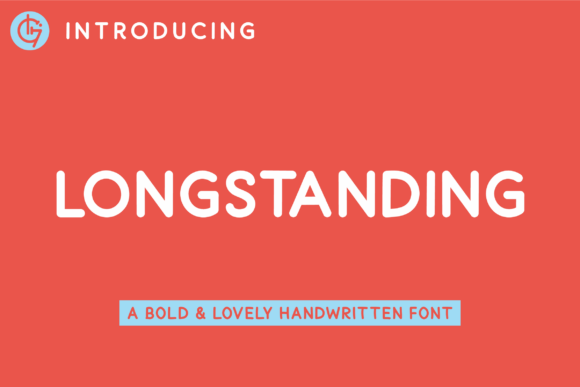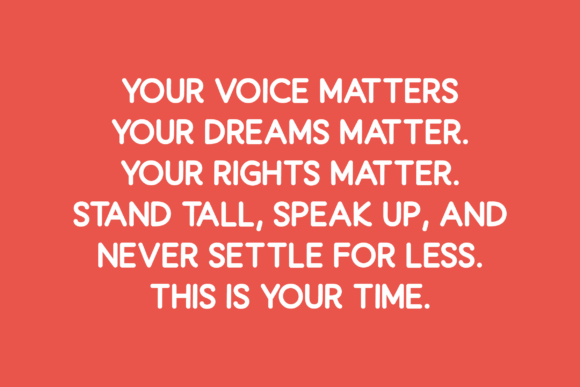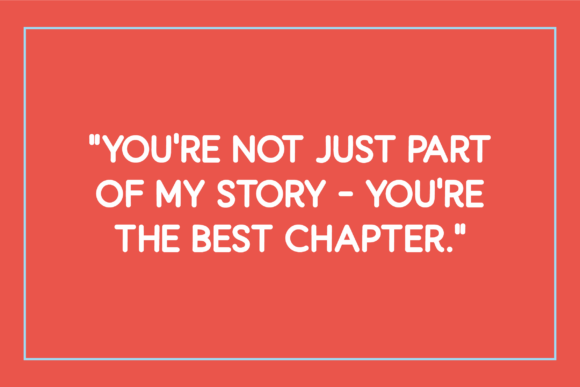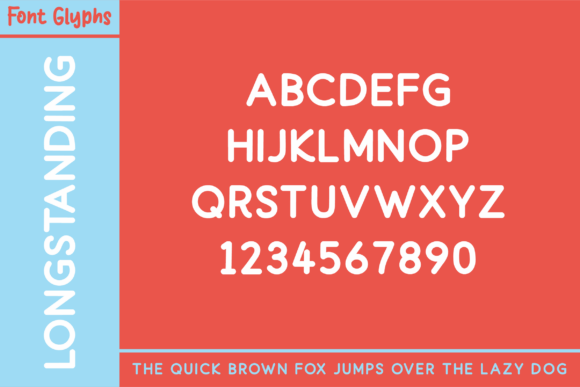
Longstanding Font: Bold Handwritten Font for Authentic Branding
About the Longstanding Font
Experience the unique personality of Longstanding Font, a font designed for impact. Make an impact with Longstanding, a handwritten font that combines a strong, bold presence with a charming, personal touch. Ideal for branding, packaging, social media, and print, its unique style adds warmth and authenticity to any design. Achieve a professional yet approachable aesthetic with it.
Longstanding excels in headlines, short-form text, and branding applications where a bold, yet approachable feel is desired. Its handcrafted nature makes it perfect for logos, packaging, and short social media posts. However, its weight and texture make it unsuitable for body text or lengthy paragraphs; readability suffers at smaller sizes.
This font’s personality is confident and friendly. It works best for brands projecting authenticity and approachability, such as artisanal food companies, handcrafted goods, or lifestyle brands with a personal touch. Consider pairing it with a clean sans-serif like Montserrat for a balanced contrast, or a more refined serif like Garamond for a touch of elegance.
For a more playful feel, a script font like Pacifico could be considered, though careful consideration should be given to the overall balance and readability in application. Avoid pairing it with overly geometric or minimalist fonts which might clash with its organic, handwritten nature.
Longstanding Font Usage Examples
Longstanding Font Example